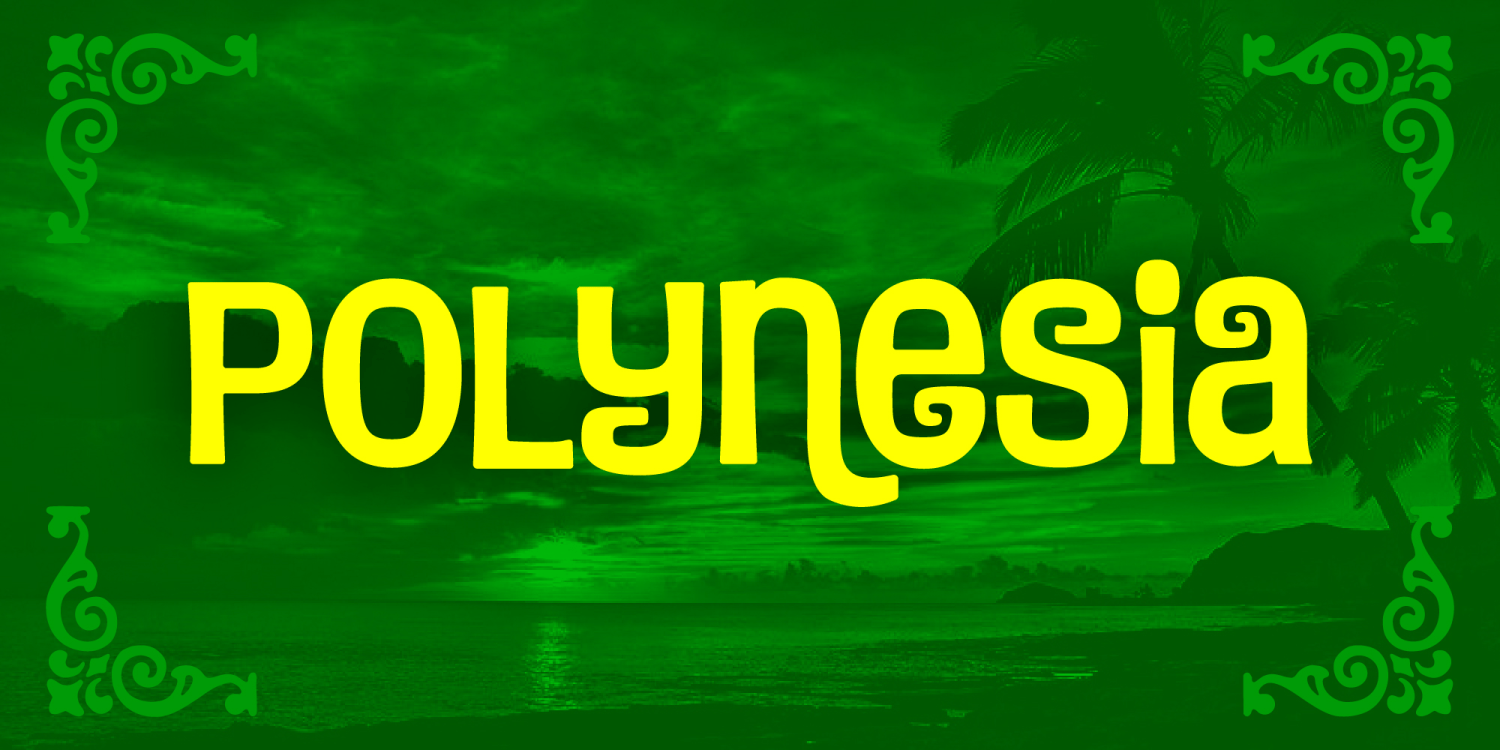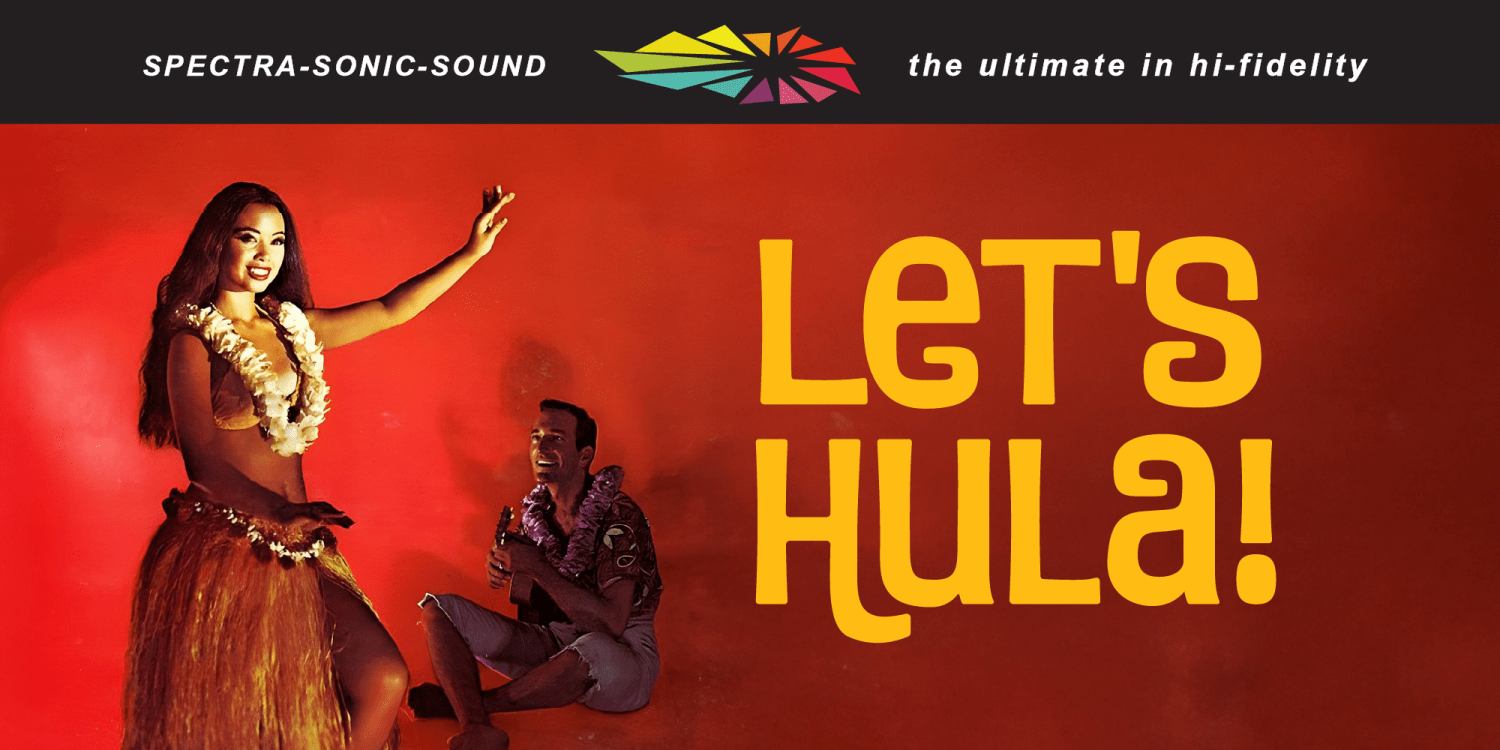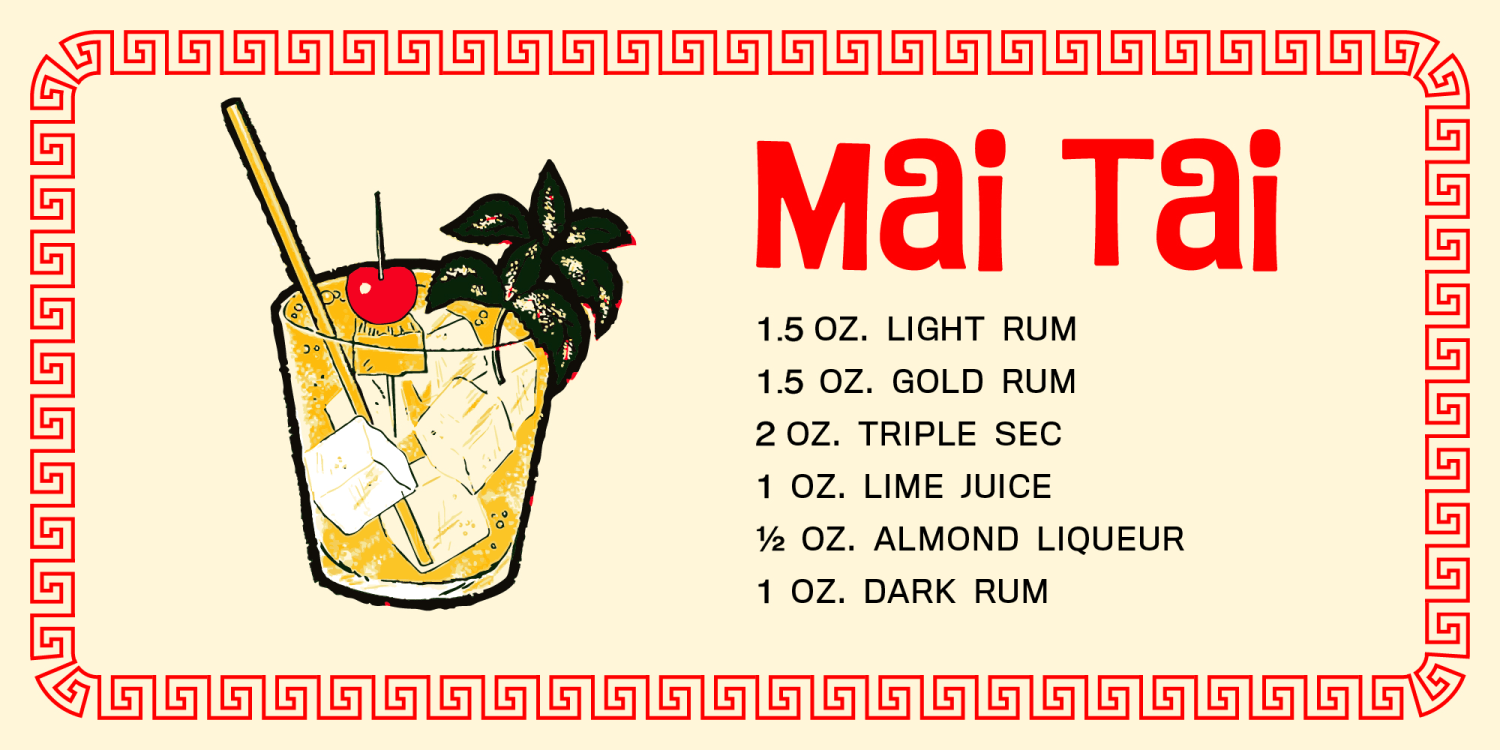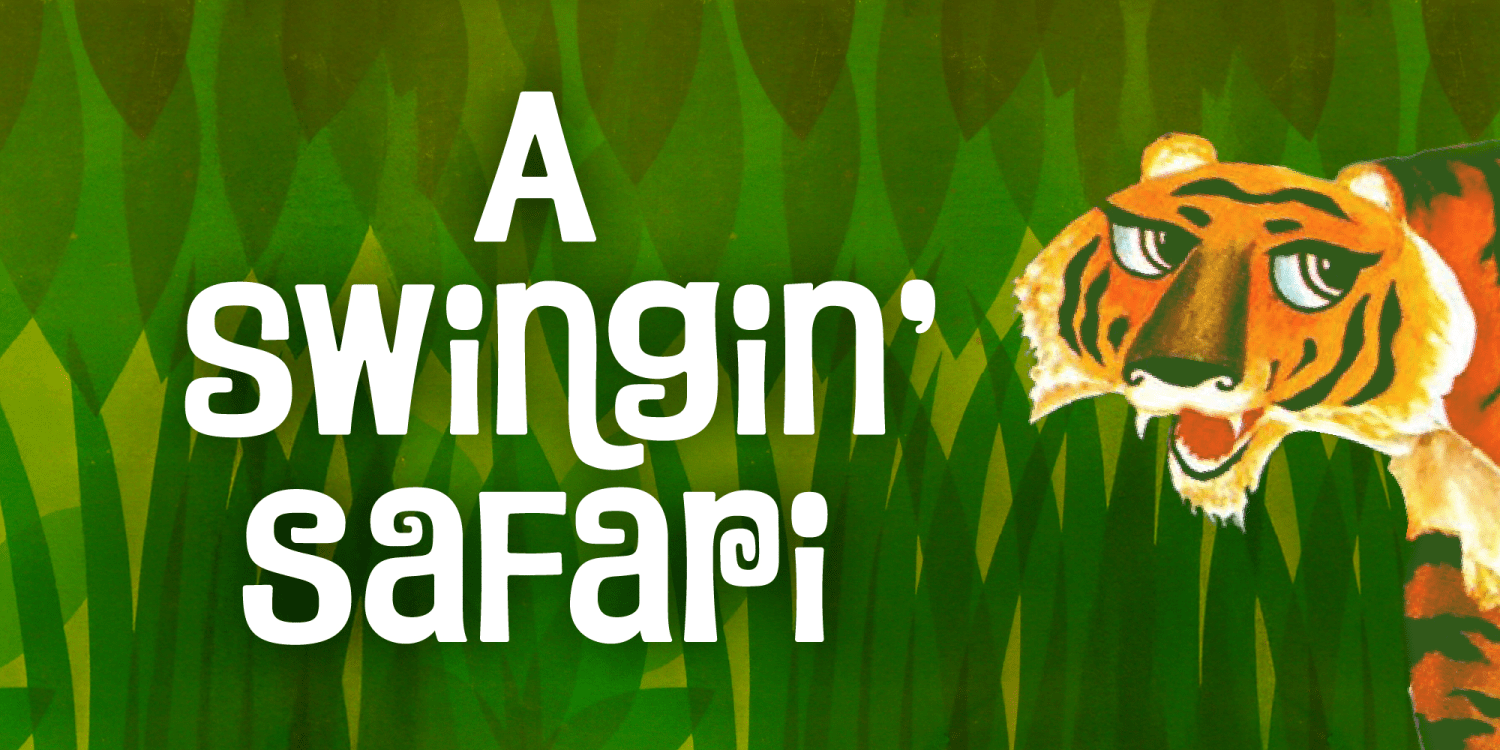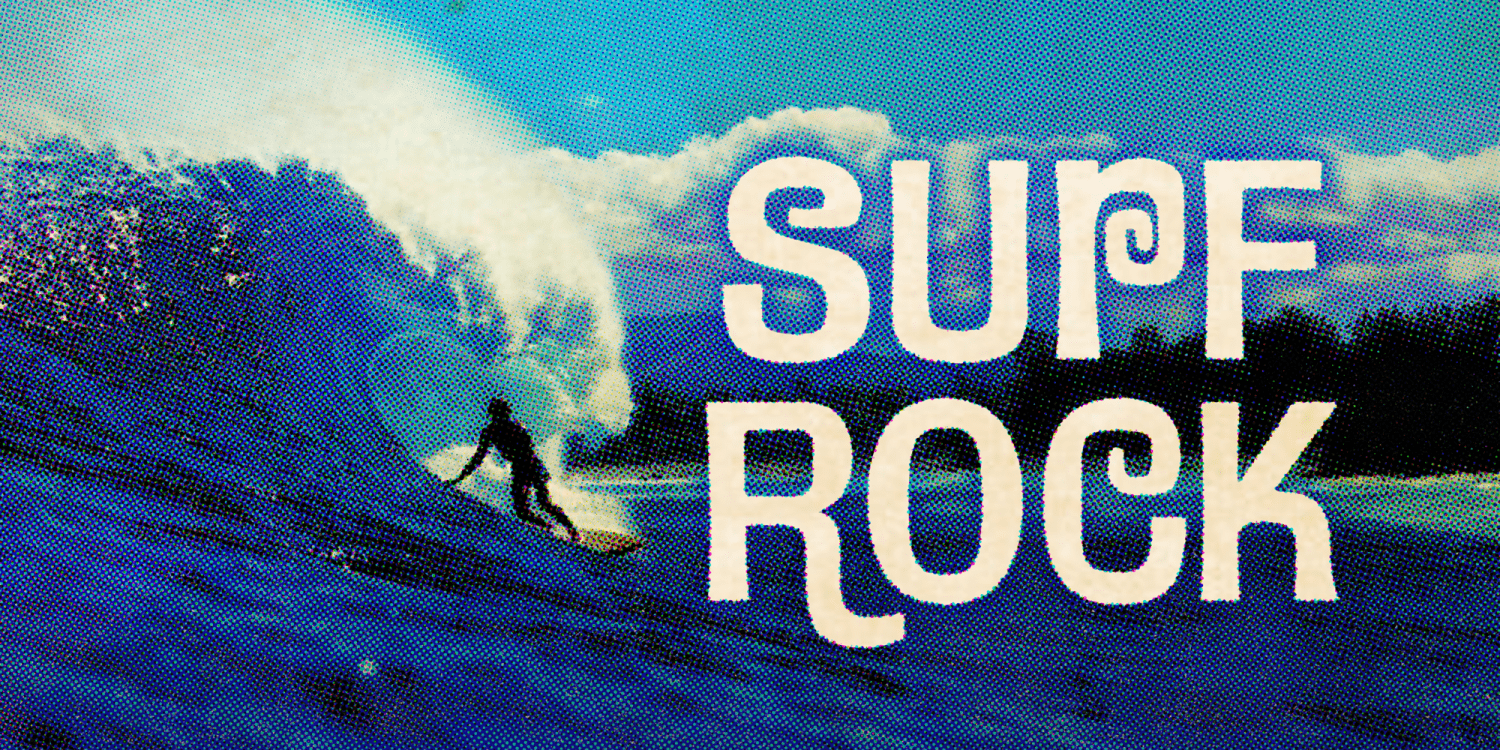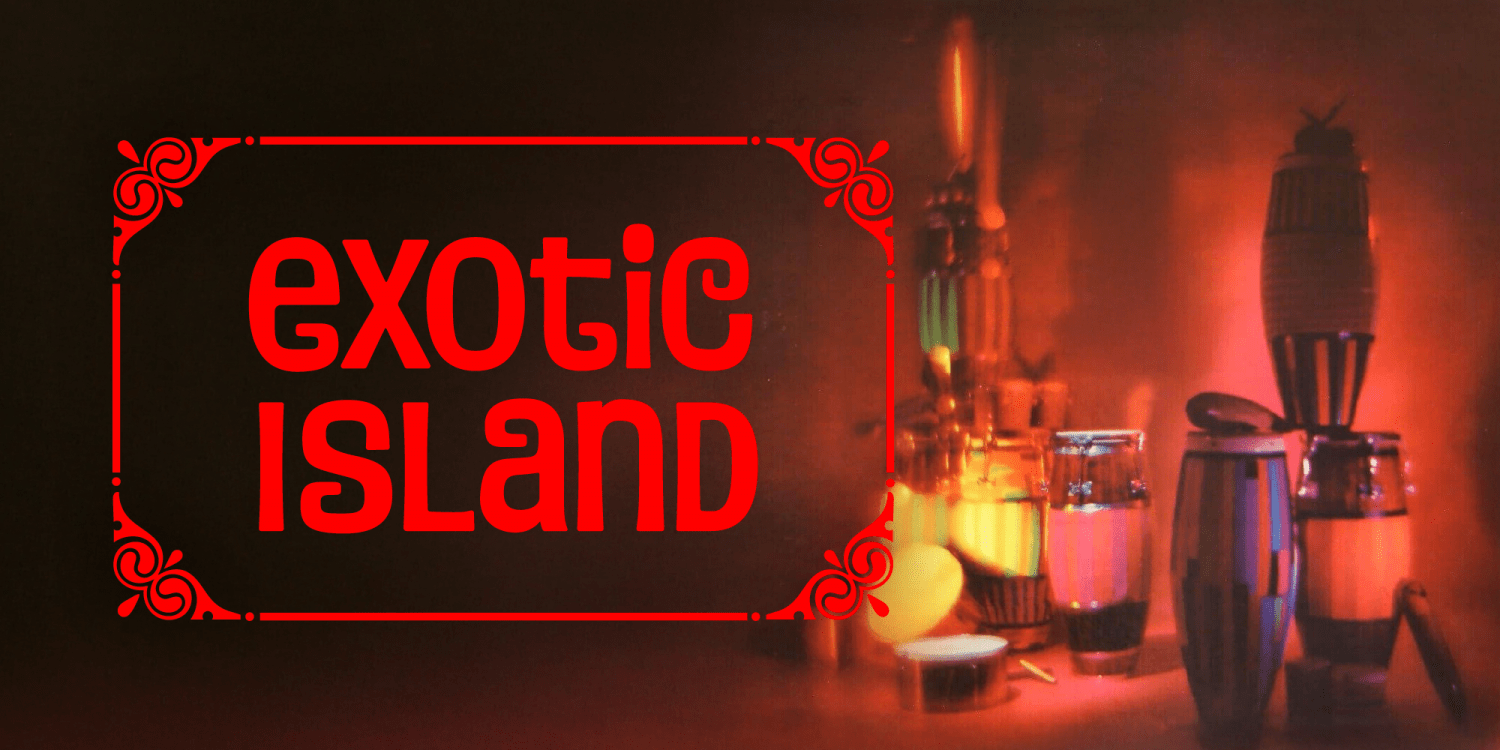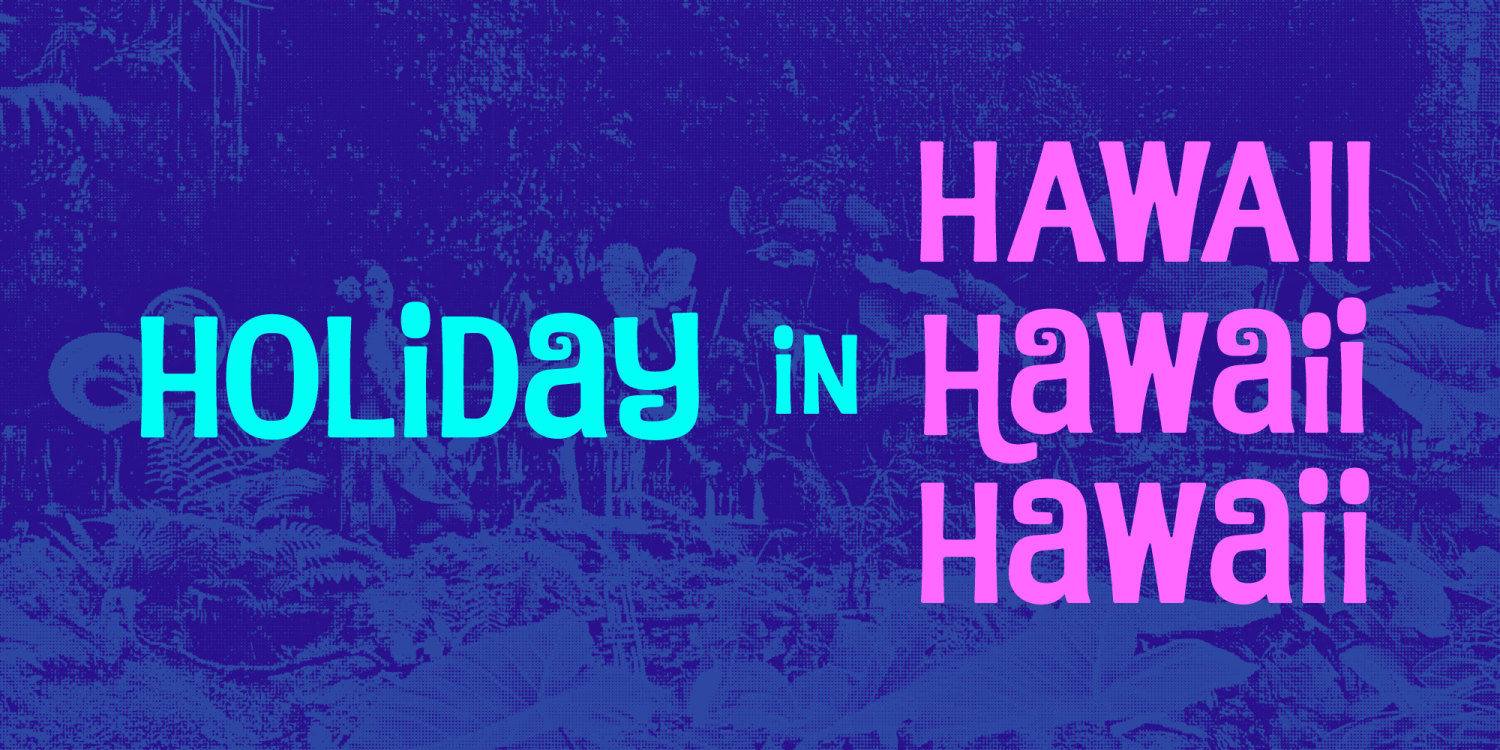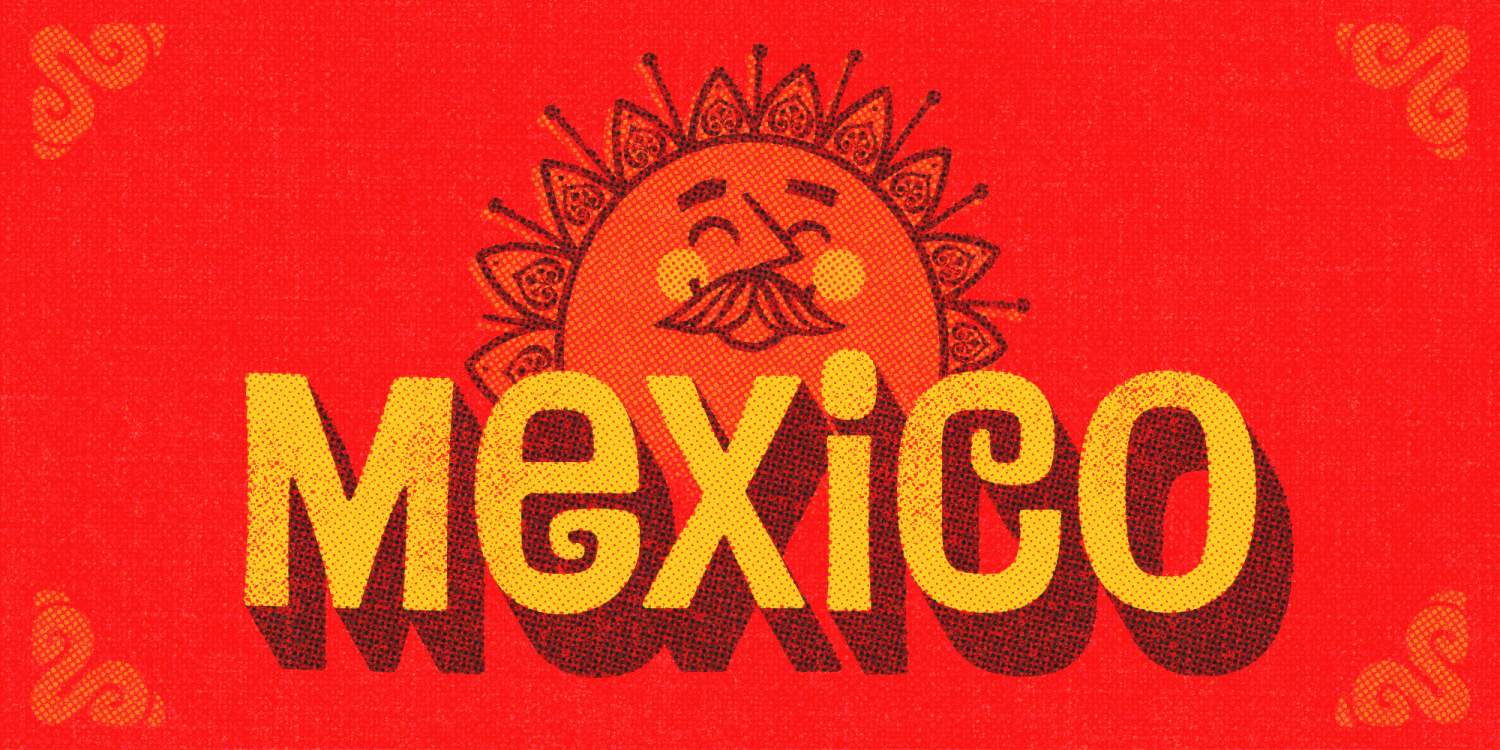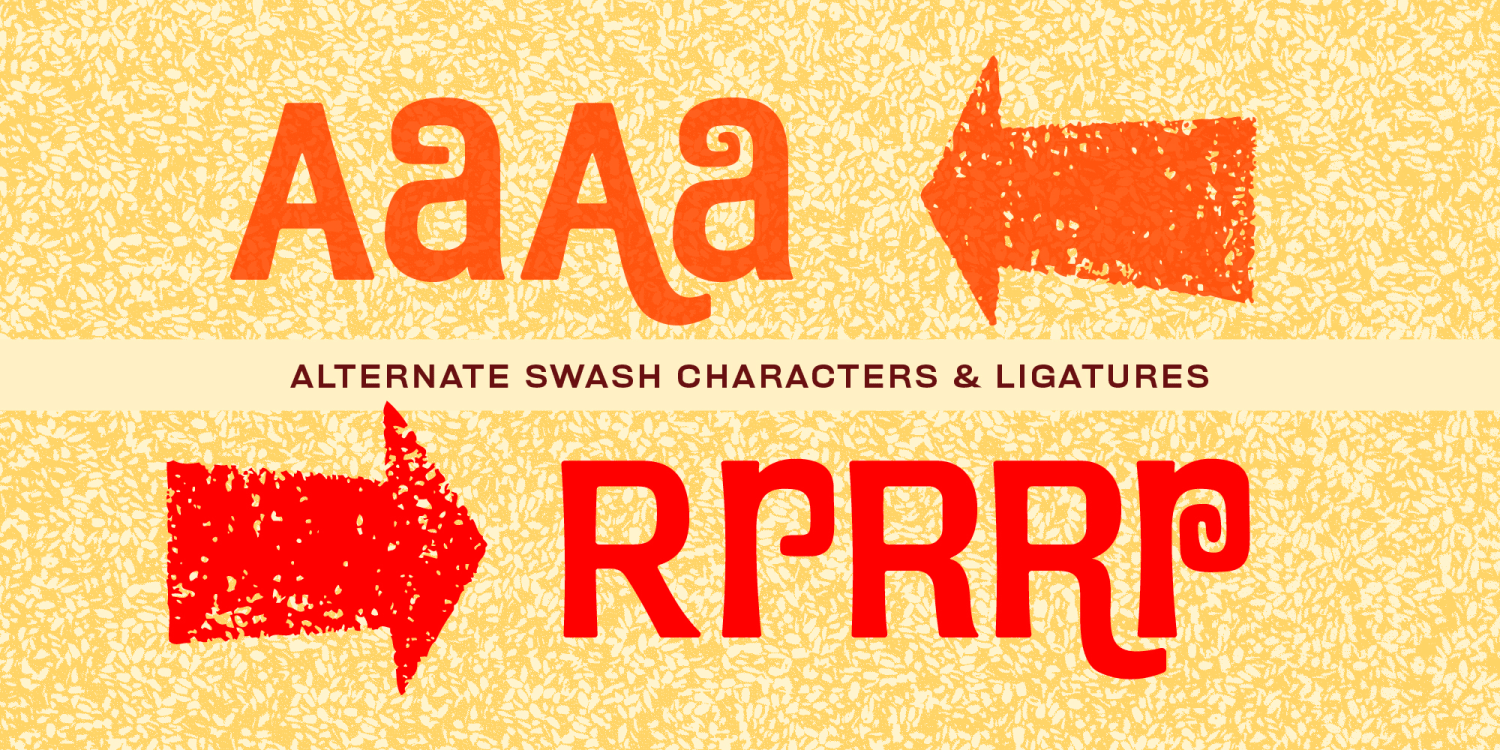
Polynesia
With its playful curls, 60s charm, and tropical flair, Polynesia feels like an airline advertisement from a dreamy island getaway. Perfect for surf shops, tiki bars, and retro branding, Polynesia brings a touch of nostalgic sunshine to any design!